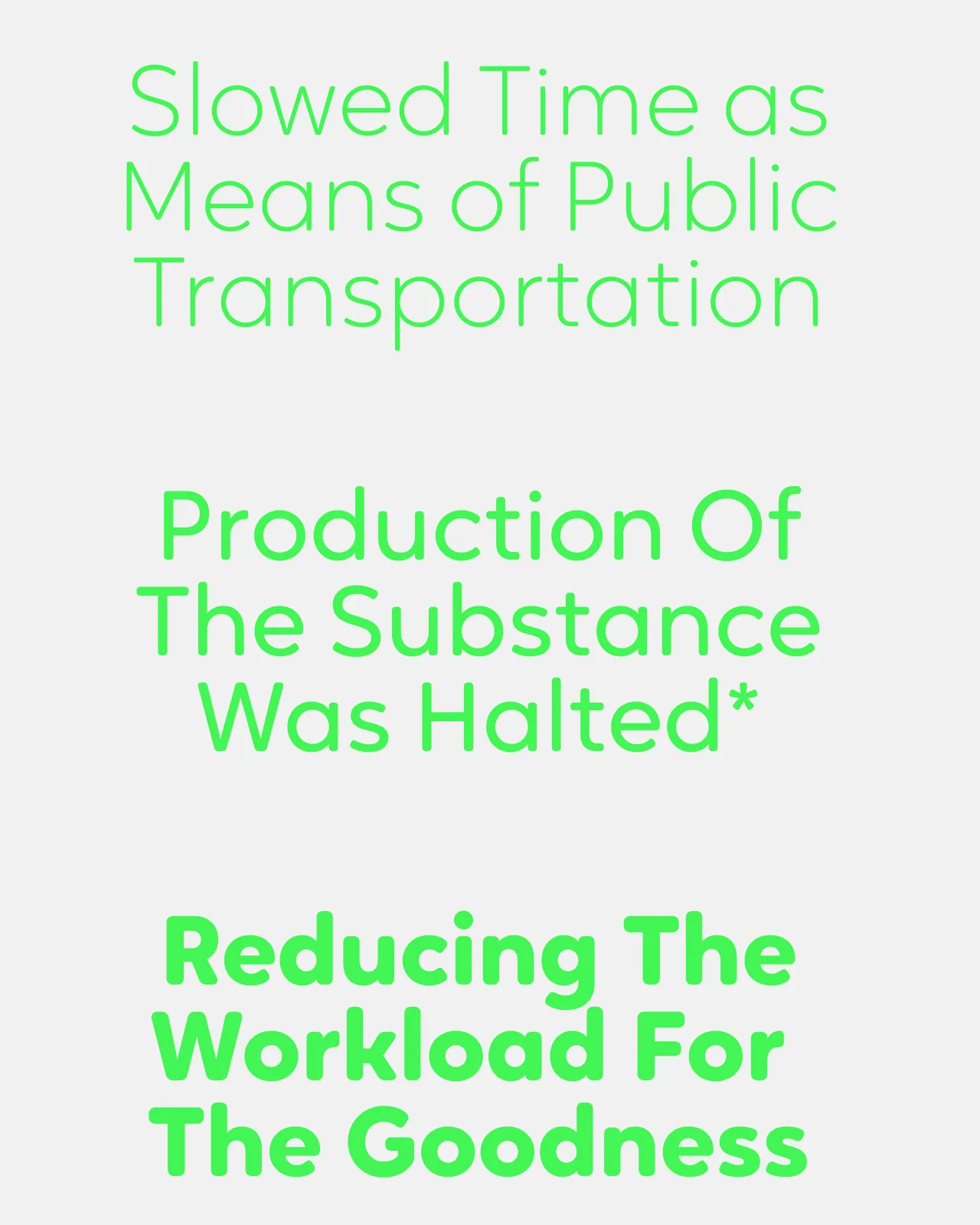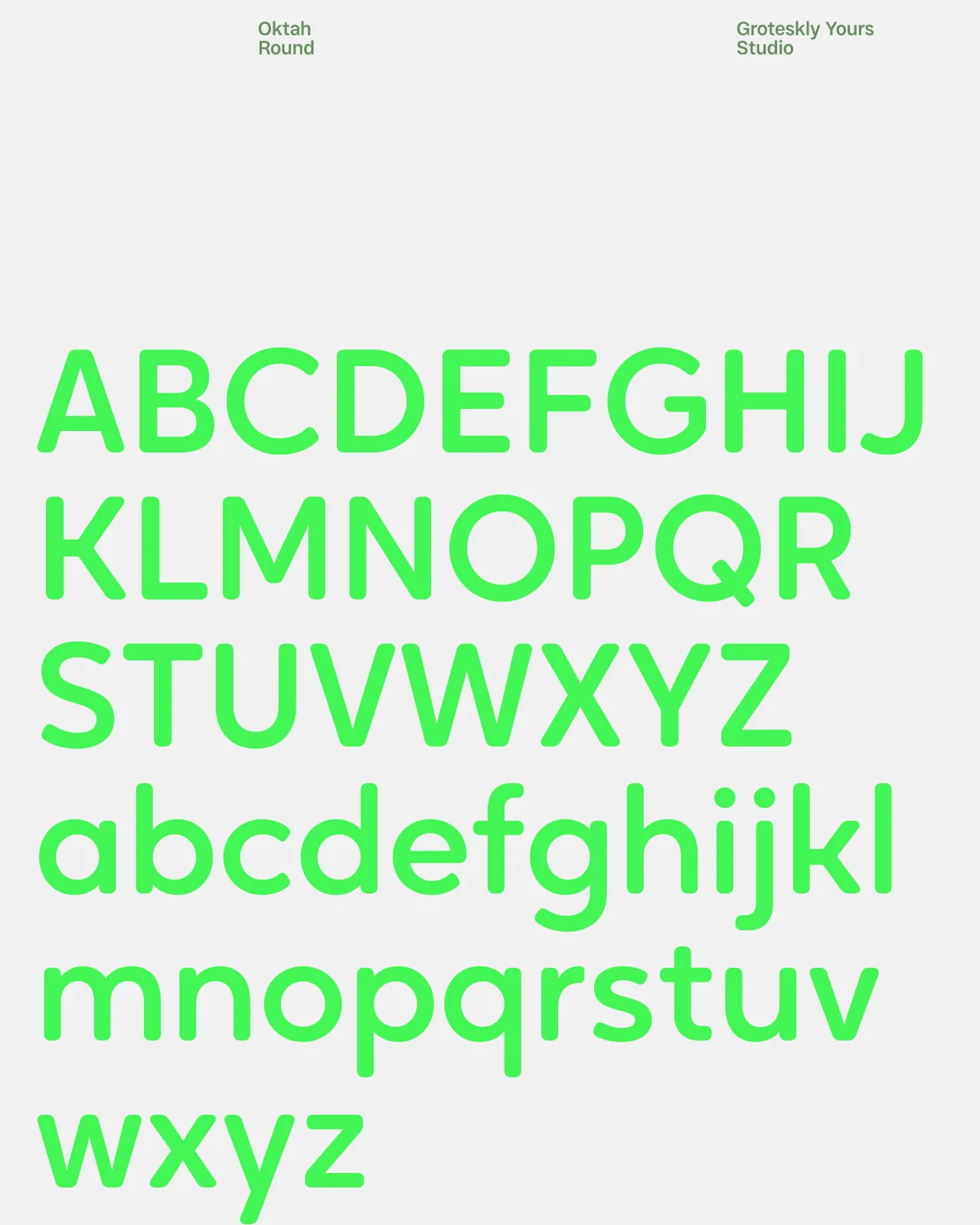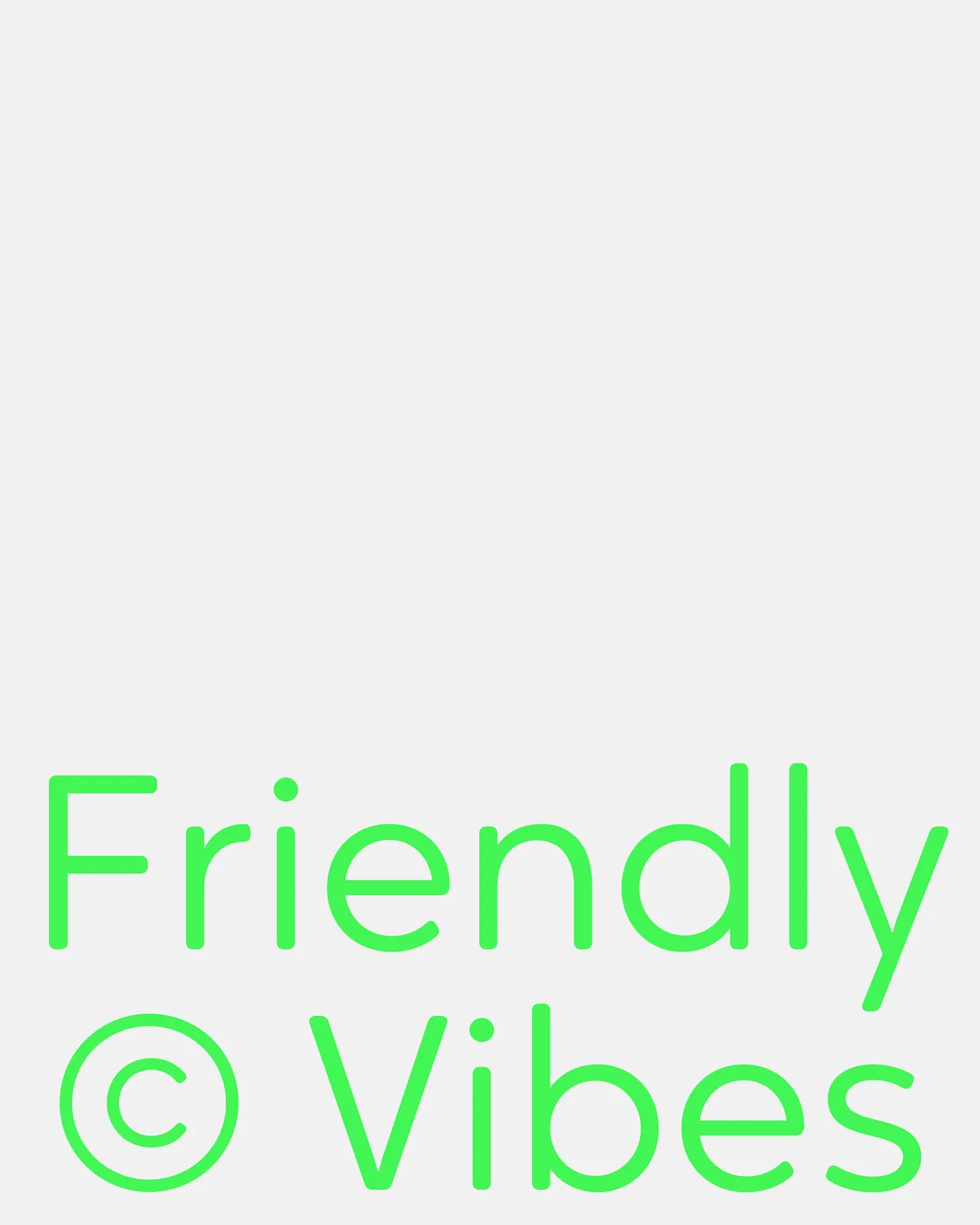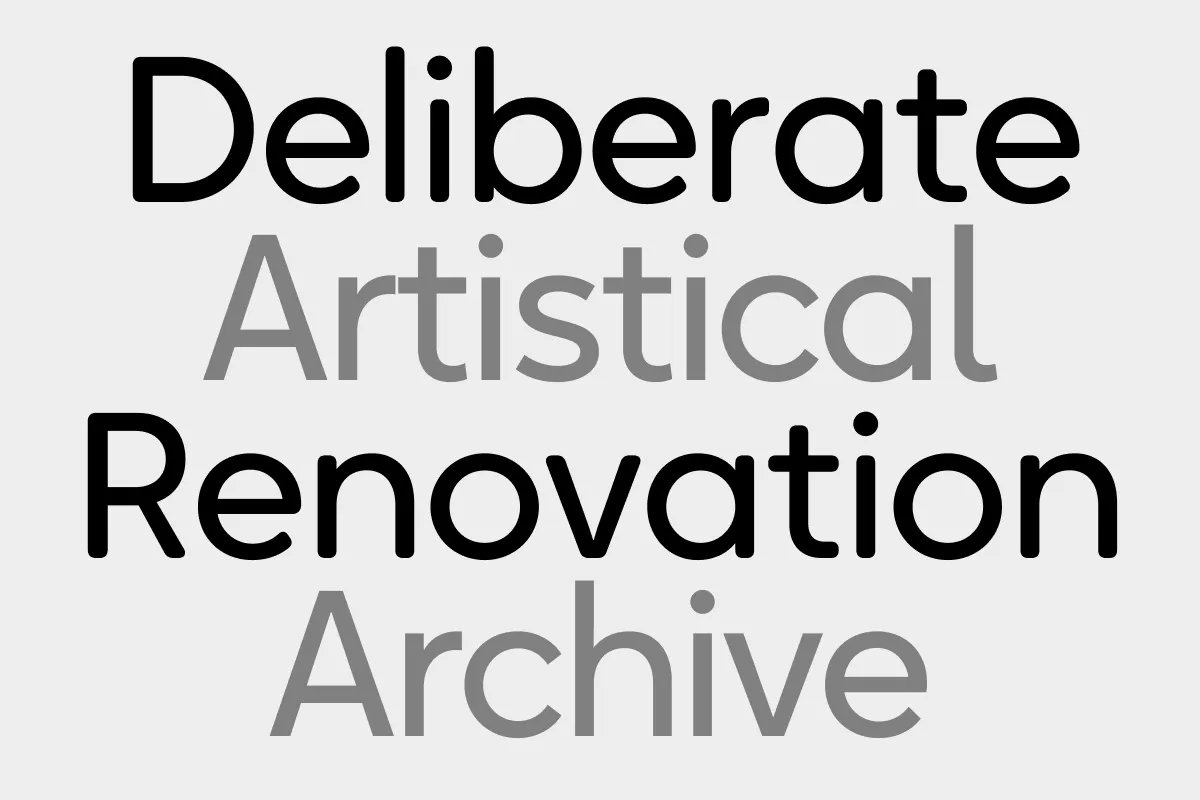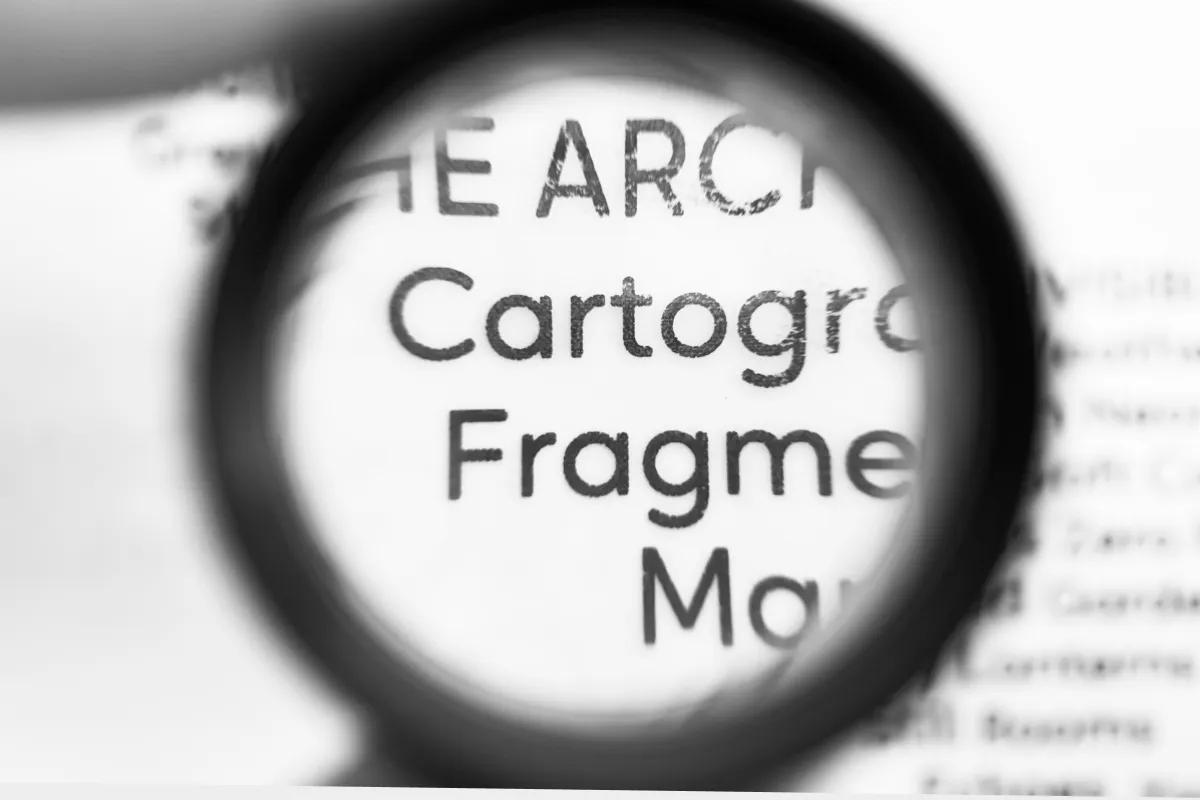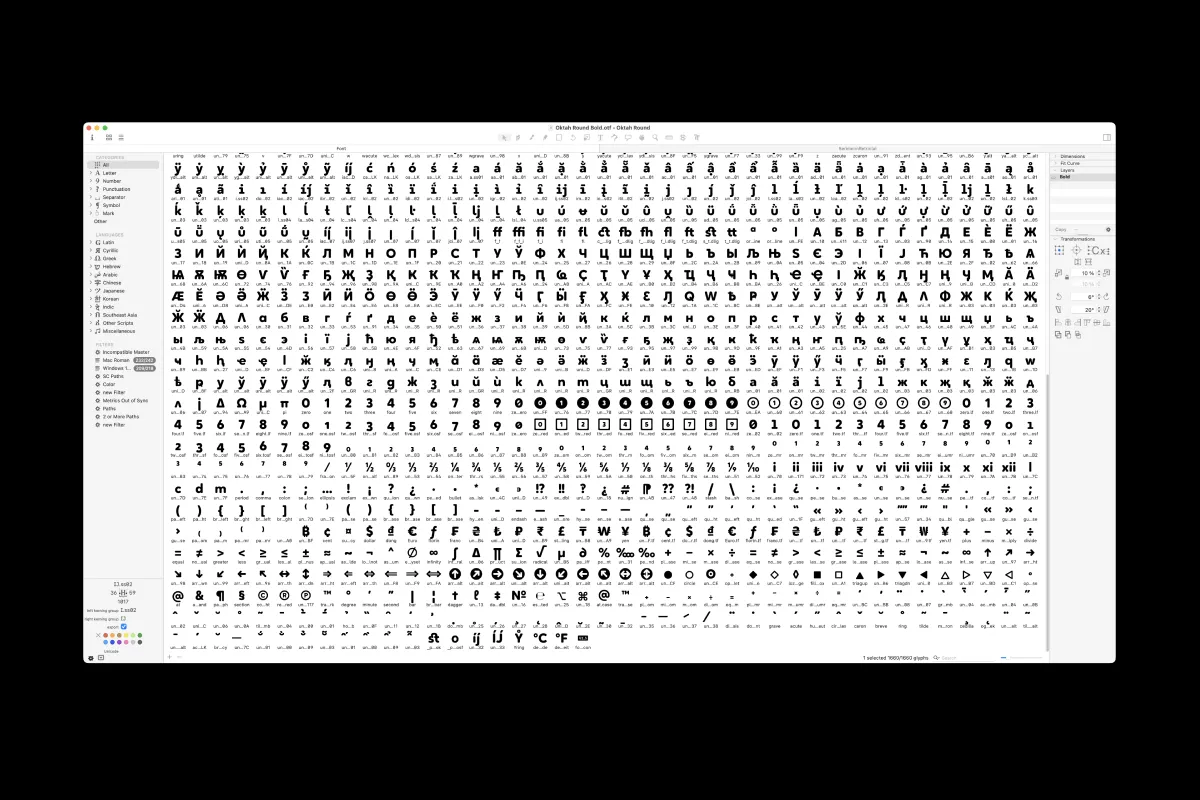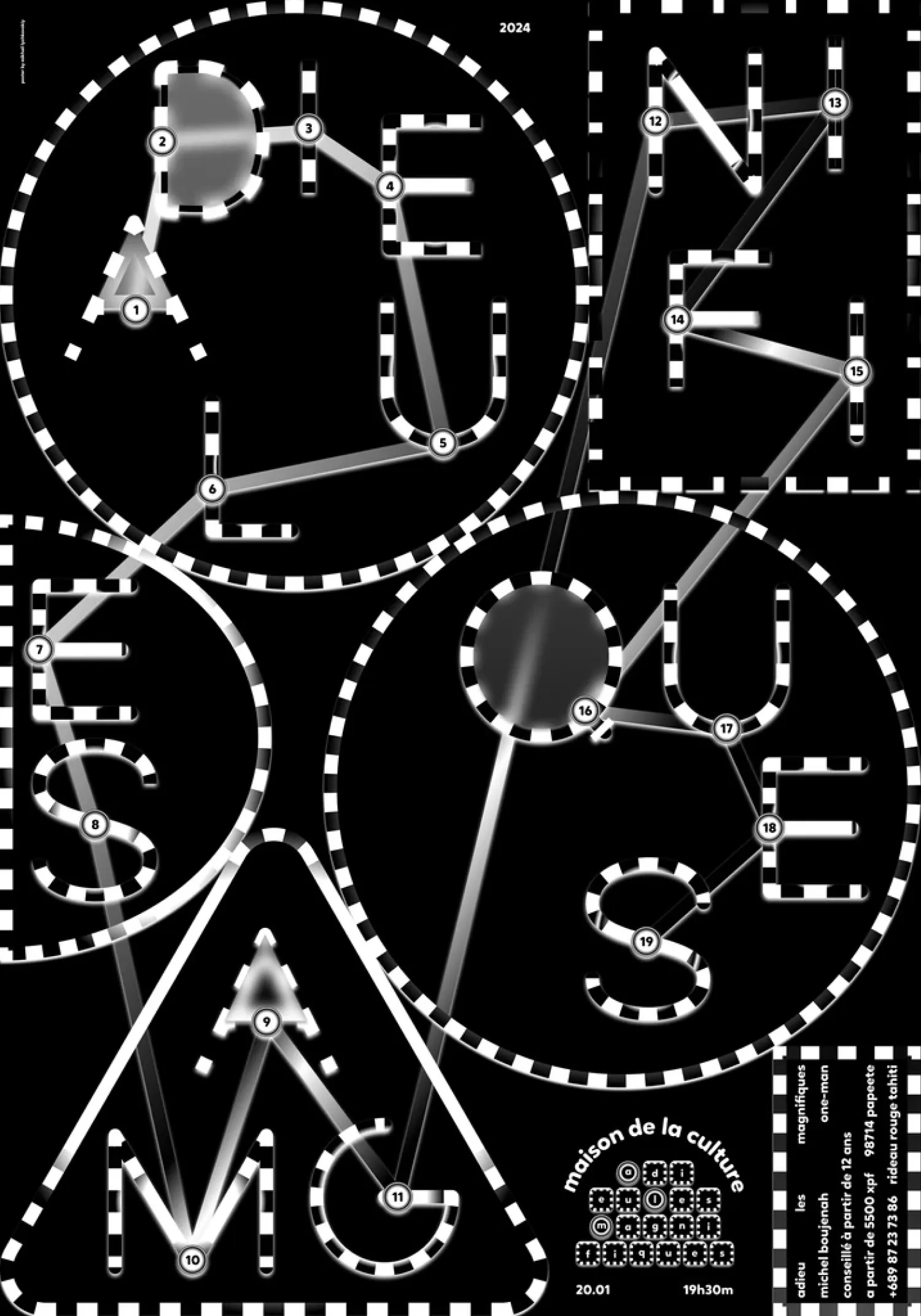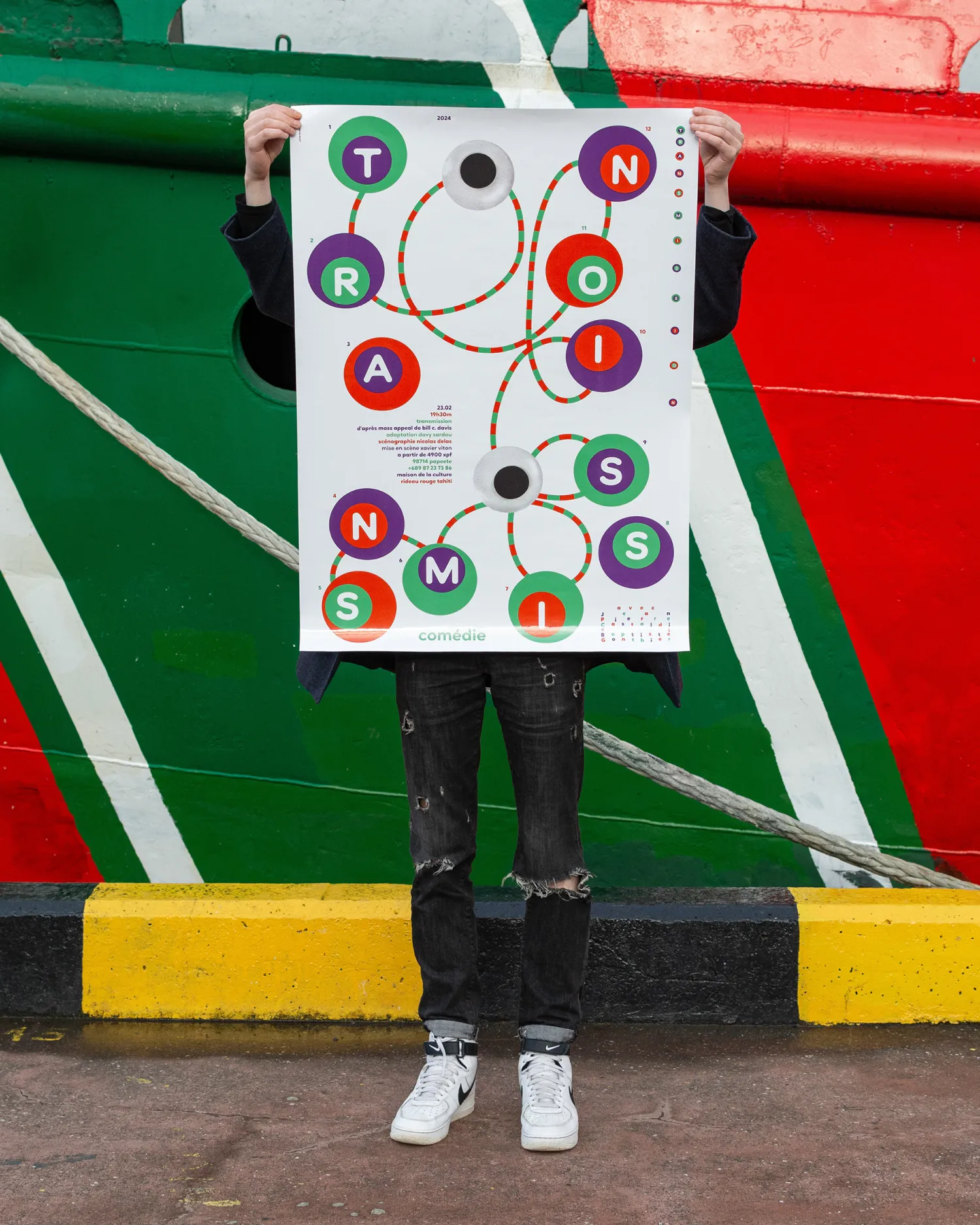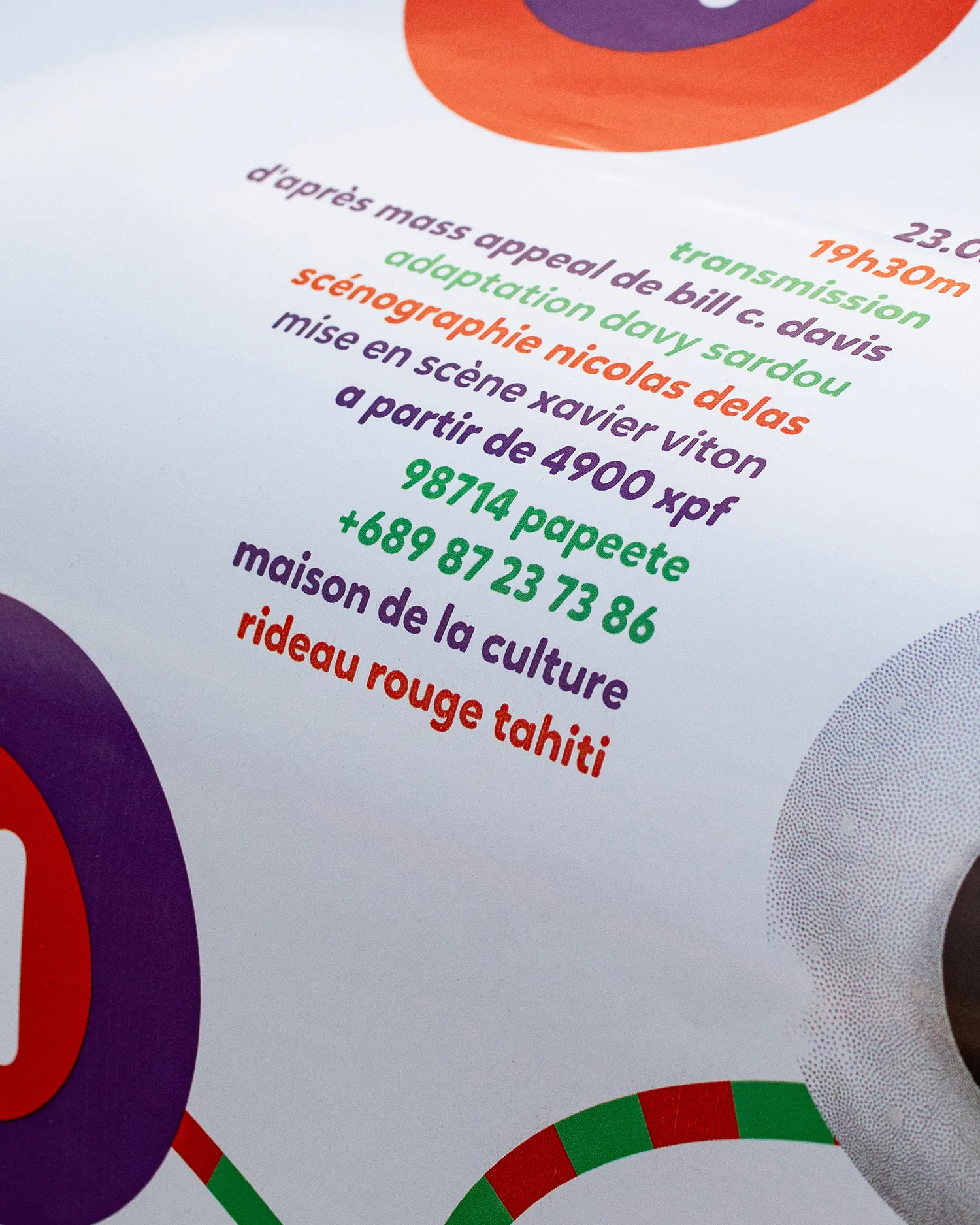
Oktah Round
Oktah Round is a sans serif family of rounded fonts with a minimalist, geometric aesthetic. Oktah Round is soft, friendly, and warm, combining a human touch with high functionality, legibility, and versatility. Retaining the geometric sans serif font qualities of its predecessor, Oktah Neue, it reinterprets letterforms with smooth, rounded corners and subtle modifications, such as refined terminals and sharper, more uniform curves. These adjustments make Oktah Round more balanced and finely tuned for contemporary design needs, ensuring it stands out in various applications.
Oktah Round features 16 styles, ranging from Thin to Black, and includes a variable font that allows you to adjust both weight and slant angle. With over 1600 characters per font, Oktah Round supports most Latin-based languages and Extended Cyrillic, along with a vast array of punctuation, geometric shapes, and symbols. This ensures compatibility with a broad range of design projects. All characters are meticulously spaced and kerned to eliminate overlaps or gaps, providing a polished and professional appearance in every context.
Oktah Round is ideal as a clean round font for logos and works beautifully in branding, web design, and other creative scenarios. Whether used as a modern sans serif for corporate branding or as a playful clean rounded font for packaging, Oktah Round brings warmth, approachability, and precision to any design. The availability of both static font and a fully Variable Font make it the perfect choice for designers seeking a reliable, workhorse typeface that’s both functional and expressive.
Designers
Eugene Tantsurin, Anna Remm